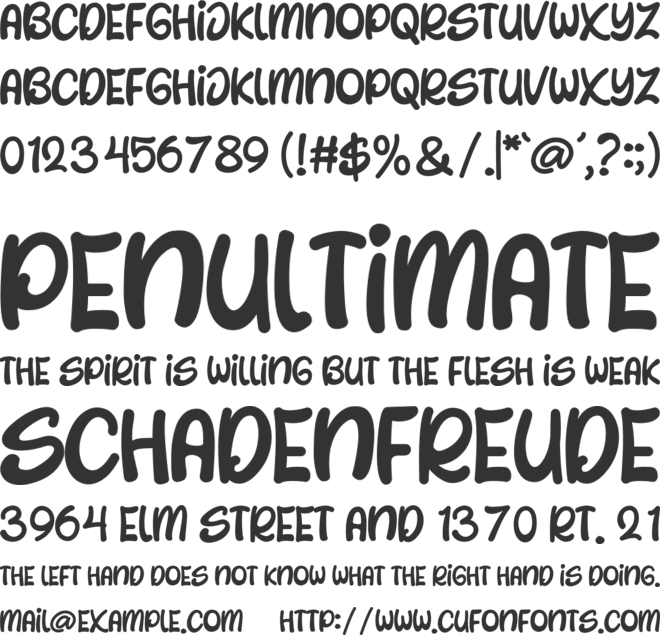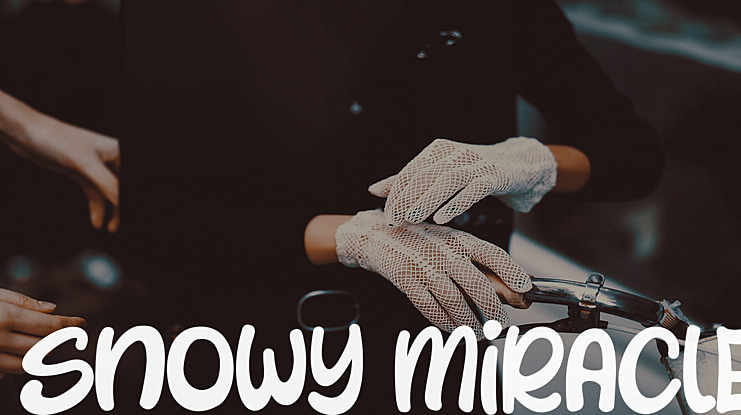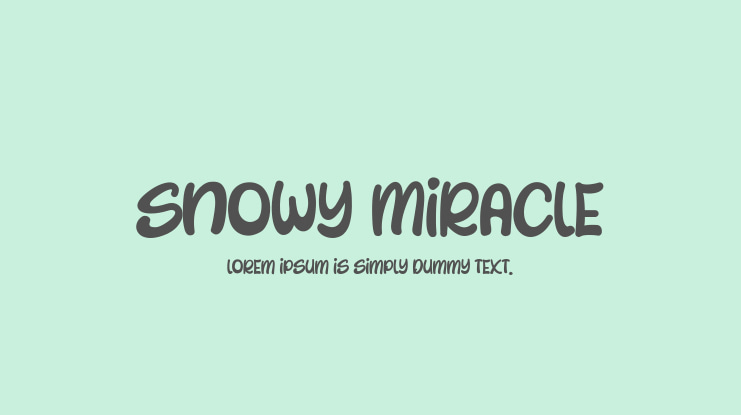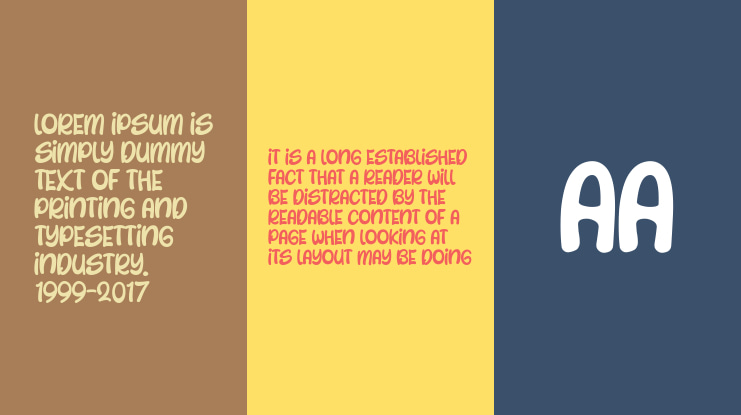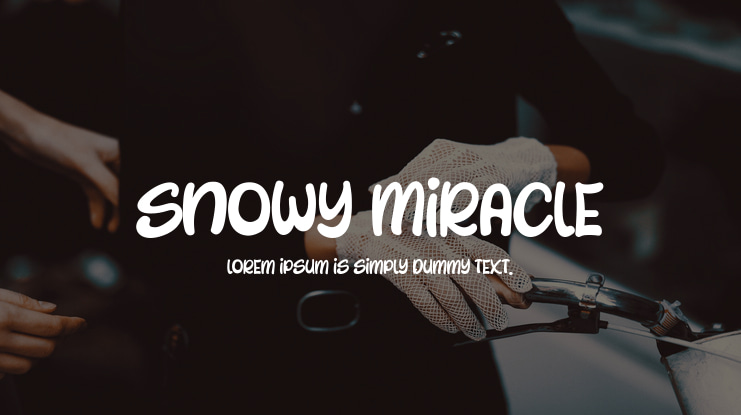
Snowy Miracle Font
Snowy Miracle is a adobrable and cute display font suitable for your instagram content, web banner, especially for children or kids content